26. Verily Serif Mono
Verily Serif Mono is derived from Bitstream Vera Serif with the same proportions as Bitstream Vera Sans Mono.
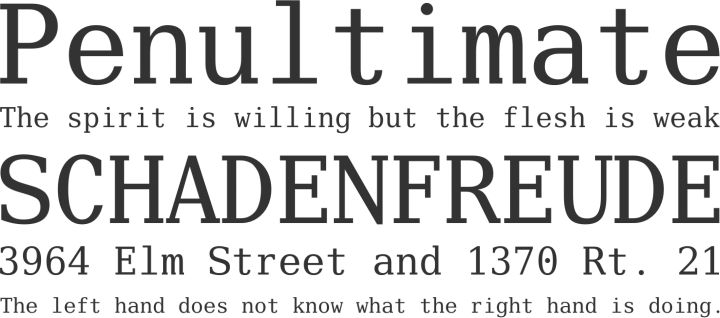
27. Stitching Font
RGB Stich Alphabet is a typographic experiment, a set of 26 sans-serif uppercase letter forms. Each letter is handmade using a combination of two overlapping RGB colors. The colors are lines of 90 and 45 degrees handmade cross-stitch.
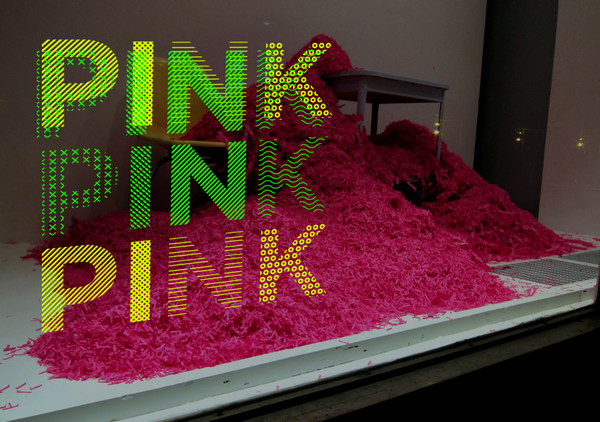
28. Gandhi Sans
Gandhi Sans is a clean san serif font available in four different styles.
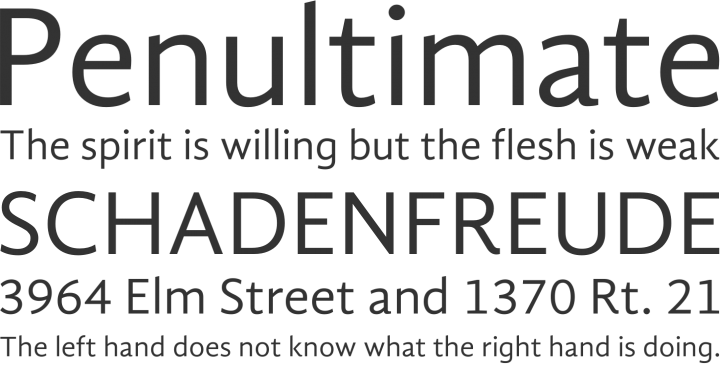
29. FARRAY
Farray is a stylish san serif font from french designer Adrien Coquet. Perfect for posters and print.
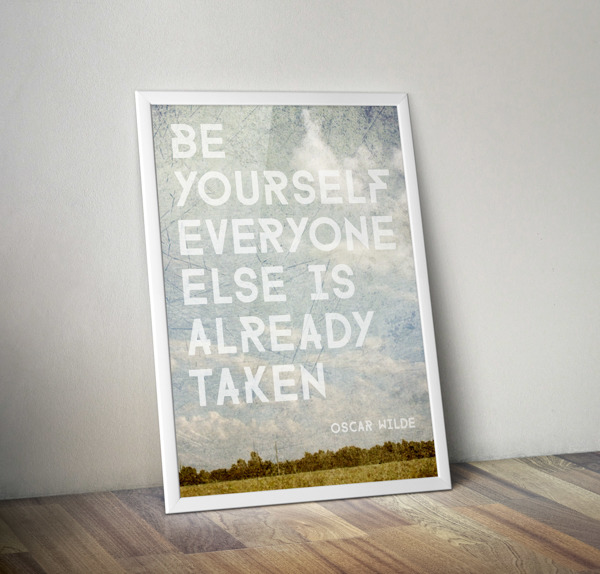
30. Poetsen One
Poetsen One is a rounded san serif font with a fun comic book-esque appearance.
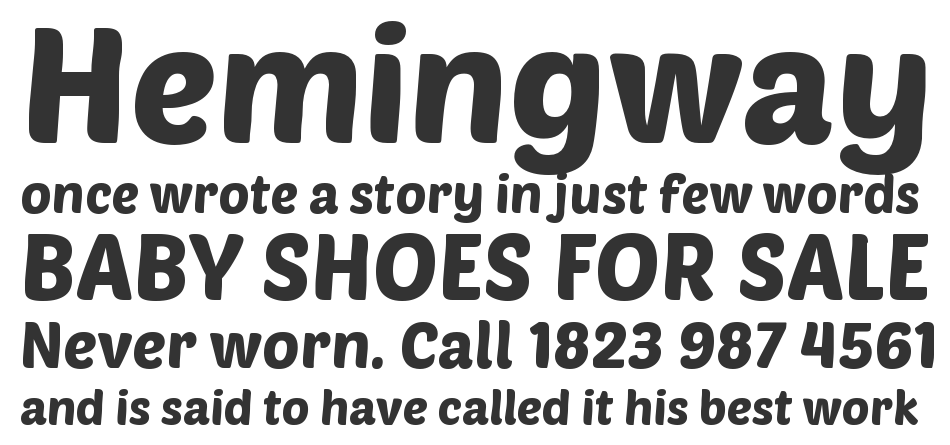
31. Hipstelvetica
Hipstelvetica is an experimental display font family. It was inspired by the legendary helvetica design.
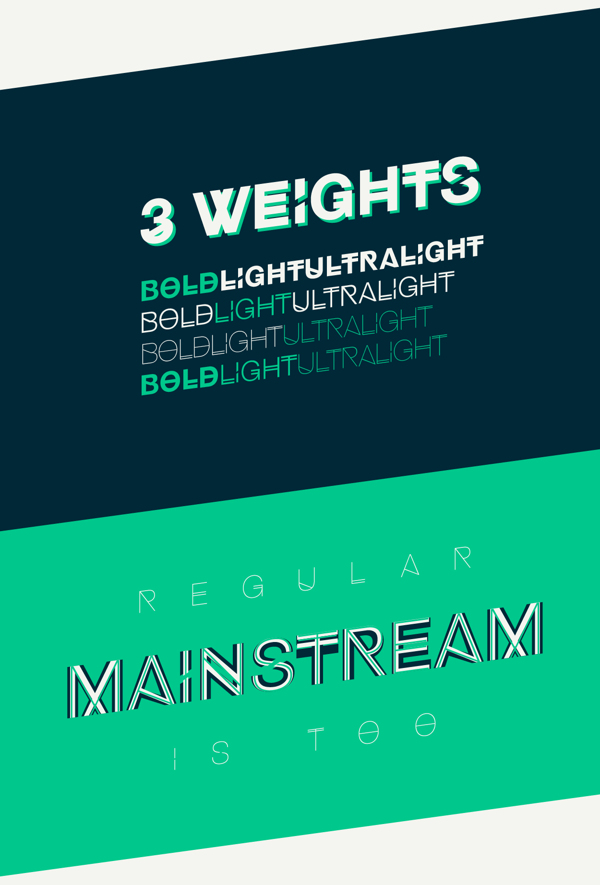
32. Poiret One
A fresh decorative geometric grotesque with a hint of Art Deco and constructivism. Poiret One is a unique typeface with light forms and pure elegance. Sleek and simple. Based on geometric forms, it has stylish lines and graceful curves. The font is applicable for large signs, labels, titles, headlines and any type of graphic design on the web, in motion graphics, or in print – from t-shirts to posters and logos.
It is also well-suited for short texts and advertising where style is desired. Complete with a lower-case letters, the Poiret One is also useful for all-caps usage.
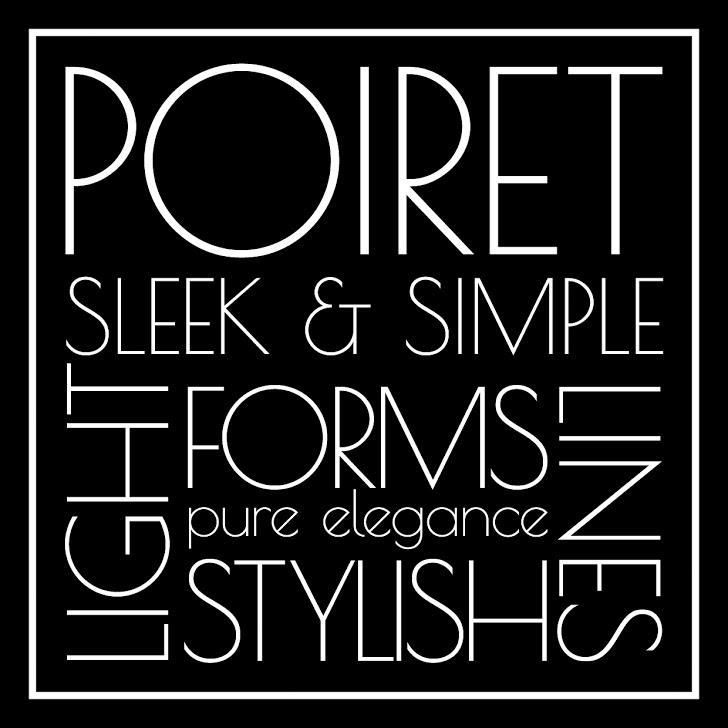
33. Marta
Marta is an Eclectic, accidental-text font with wedge serifs. Font includes the Old Calendar figures, ligatures, ordinals, and alternative forms of signs, thus extending the possibilities of typography. Extended Cyrillic and Latin. Contains over 650 glyphs.
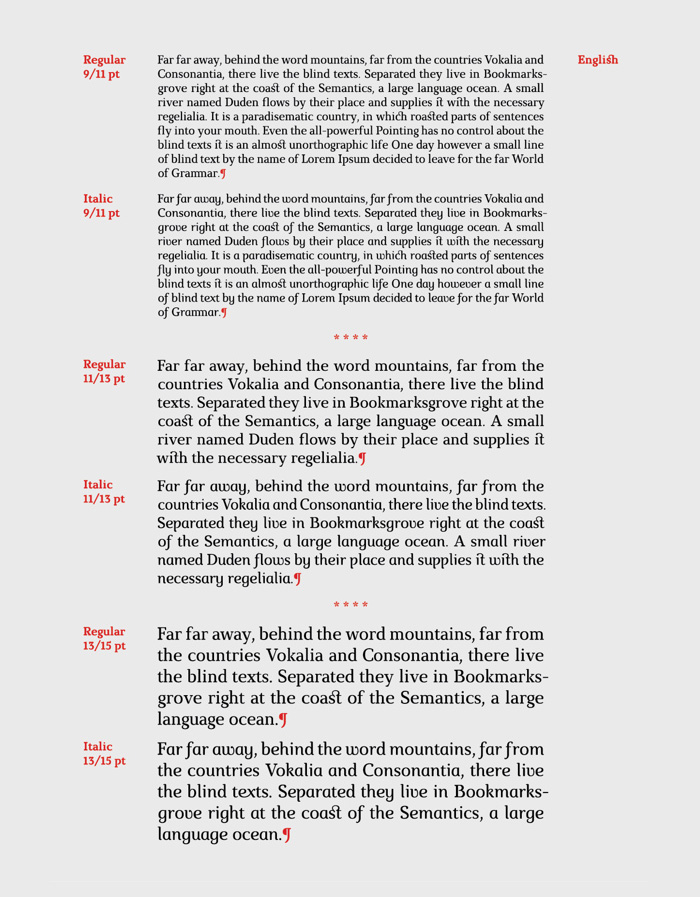
34. Wolf in the City
A very cool decorative and urban script style font.
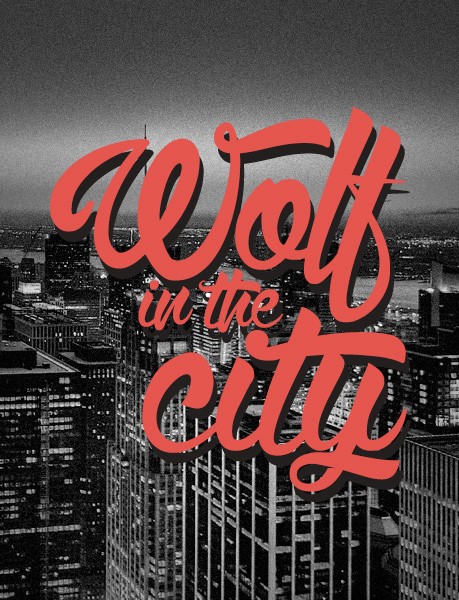
35. Glamor
The Glamor Type Family, including a set of 24 fonts with more than 200 unique characters per font, is free for use for personal and/or commercial works.
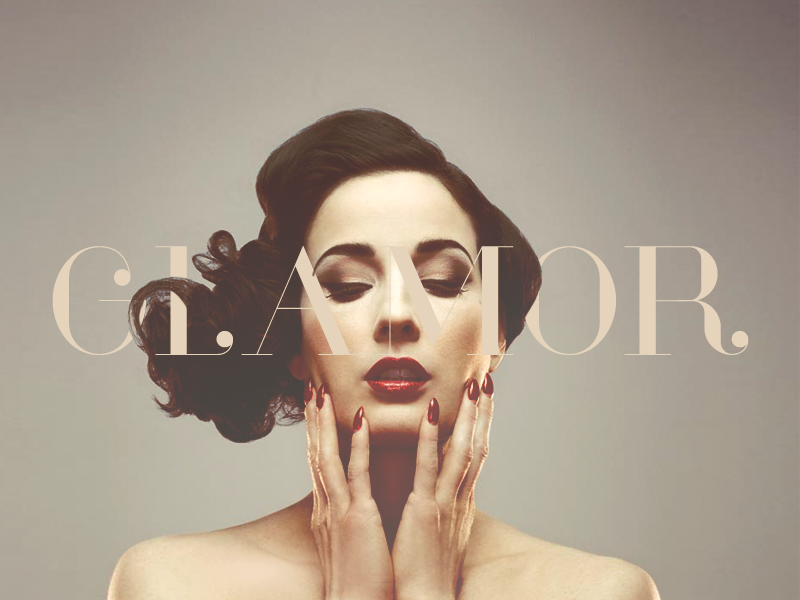
36. Geotica 2012
Geotica 2012 supports a very wide range in languages and is a complete OpenType typeface. Each font has more than 600 glyphs.
37. Lobster
Lobster is a script style font for use in web and print design.
38. Museo Slab
Museo Slab is robust slab serif with Museo’s friendliness. Please note that only the Museo Slab 500 variants are free.
39. Multicolore
Technically this is not a font (as the current state of technology doesn’t allow multicolored fonts) and you cannot write with it in your favorite program – you will need a vector editing application like Adobe Illustrator to easily create short texts for headlines, posters, logos or anything else.
40. Infinity
Infinity free font was created from the simplicity of lines and curves with round corner and cap. The name comes from guides for creating, they are similar to number 8 and infinity symbol.
41. Code Pro
Code Pro is a font family inspired by the original Sans Serif fonts like Avant Garde or Futura, but with a modern twist. It is clean, elegant and straight-to-the-point. Code font is applicable for any type of graphic design—web, print, motion graphics, etc.—and perfect for t-shirts and other items like posters and logos.
42. Chawp
This display font (all caps) supports several languages and the download includes OTF, TTF, and webfont files (as well as a source file, if you’re feeling creative).
43. SciFly Sans
Tomi Haaparanta, the famous and prolific font designer from the Suomi Type Factory, has created a new typeface, commissioned by Flyerzone. Anyone can download and use SciFly Sans within their projects to create a unique style.
44. Cinzel
Cinzel is a typeface inspired in first century roman inscriptions and based on classical proportions. However it’s not a simple revivalism. While it conveys all the ancient history of the latin alphabet it also merges a contemporary feel onto it. This typeface was primarily designed for screen, so while it has a large contrast I ensured that the font would work on a screen. Cinzel was commissioned by Google Fonts for its web font library, this also means that the font is available at no cost.
50. Blackout